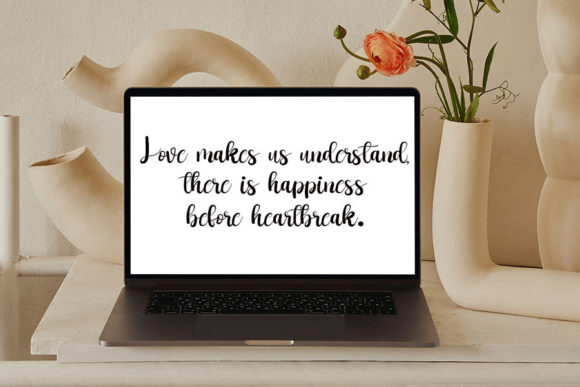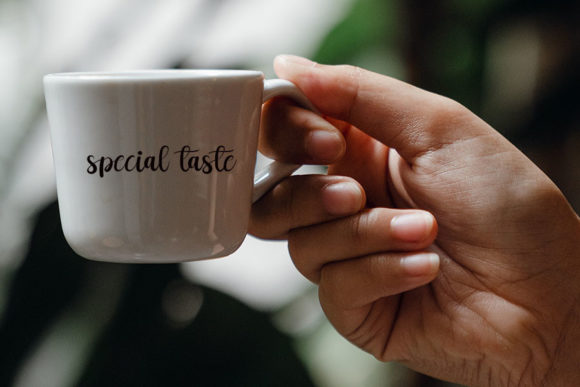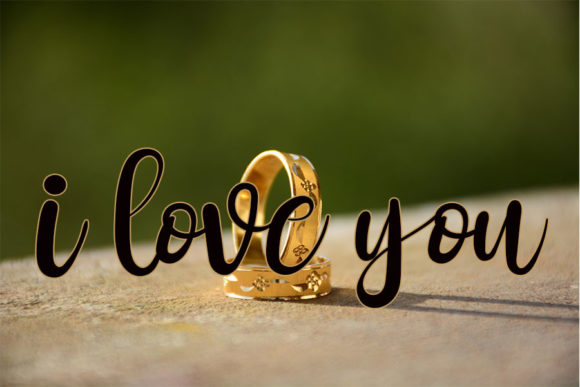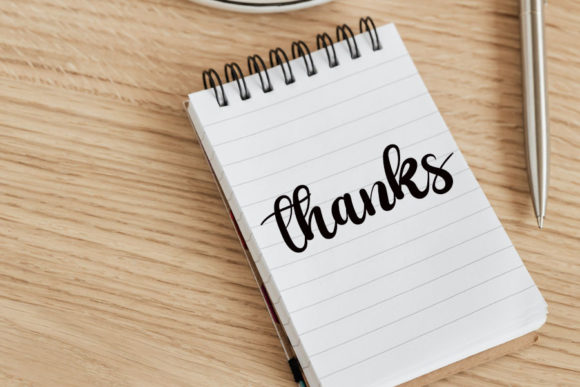
Discover the Sweetness of Honey Font
Remember that moment when a font speaks directly to your creative soul? It’s like stumbling upon a hidden treasure that makes your design dreams come true. For many designers, that moment is when they lay eyes on Honey Font.
Honey Font is a beautiful, handwritten font designed to add a touch of elegance and whimsy to any project. Whether you’re crafting a logo, branding design, or a quote, Honey Font is the perfect choice to make your words shine. Its unique, handcrafted style brings a personal touch to every design, making it truly special. As a designer, you know how valuable a font like Honey Font can be – it’s the secret ingredient that elevates your work from ordinary to extraordinary.
- Unique Characteristics: Honey Font features a unique blend of modern and vintage elements, with intricate details and subtle texture, making it perfect for creative projects and designs that require a touch of elegance.
Honey Font Review
As a designer, I was excited to try out the Honey Font and see what it’s all about. Here’s my honest review.
- The Honey Font has a unique and playful vibe that’s perfect for food or lifestyle brands.
- The font is highly customizable, with a wide range of font styles and sizes to choose from.
- The Honey Font is highly legible, even at smaller font sizes, making it perfect for body text.
- The Honey Font may not be the best choice for formal or professional brands, as it can come across as too casual.
- The font may not be suitable for small text sizes, as it can become difficult to read.
Overall, I think the Honey Font is a great choice for brands that want a playful and modern look. However, it may not be the best fit for every brand, and it’s essential to consider the limitations before making a final decision.
Honey Font is ideal for designs that require a playful and whimsical touch. Common use cases include:
– Children’s books and educational materials
– Food and beverage branding
– Stationery and invitations
– Digital art and graphics